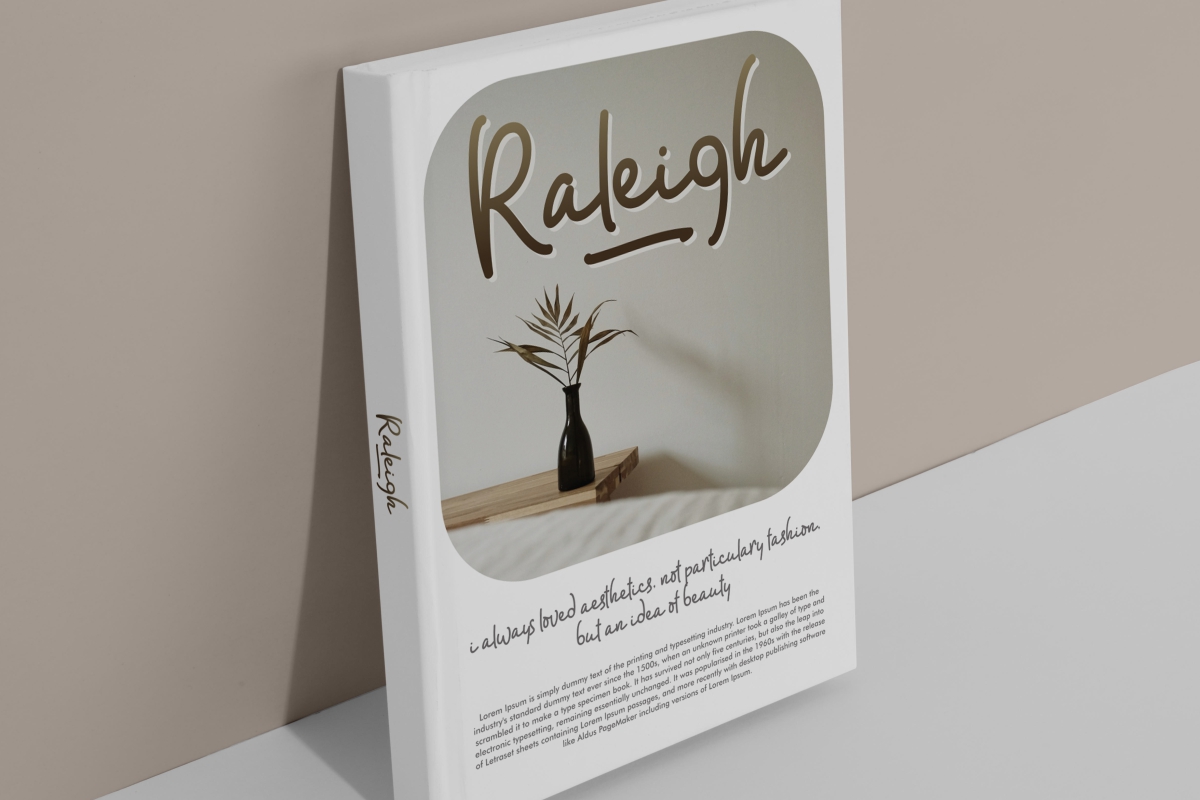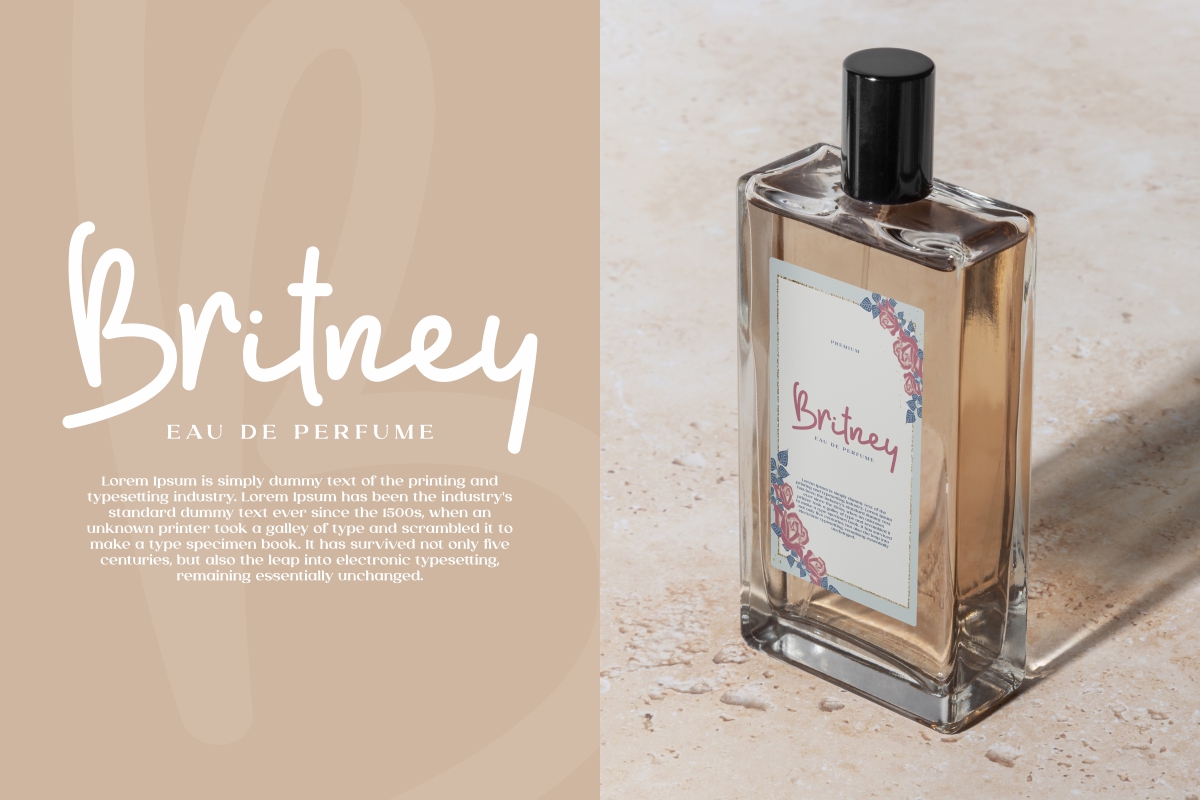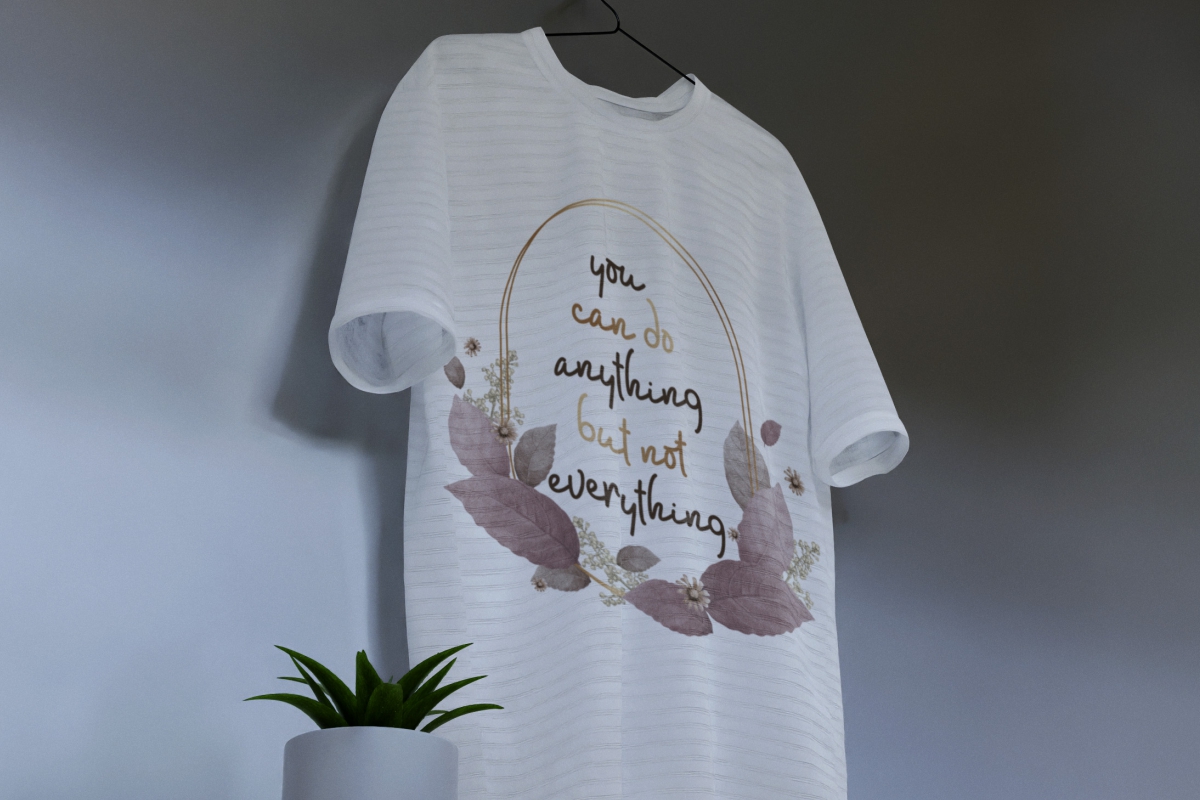
Social Niceties Font
Social Niceties Handwritten Font
It’s a script font with natural handwriting style. This font has a unique line drawing so that it won’t bore anyone when looking at it and still easy to read. It would be perfect for cosmetic, fashion, perfume, florist, furniture, photography, printing, publishing, wedding organizer, and more!
Social Niceties Font includes full set of Uppercase and Lowercase Basic Characters, Numerals and Punctuation. Also it contains ligature and swoosh characters to make your designs have a beautiful look and perfect for many projects, such as business card, logo, headline, invitation, label, magazine, product packaging, quote, signage, stationery, sticker, website page, etc.